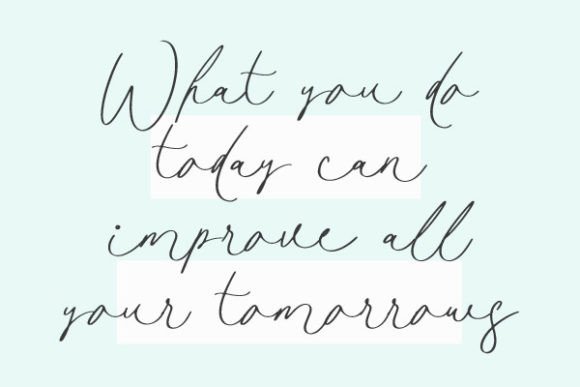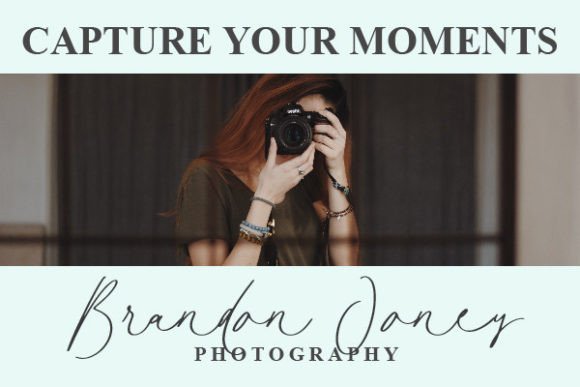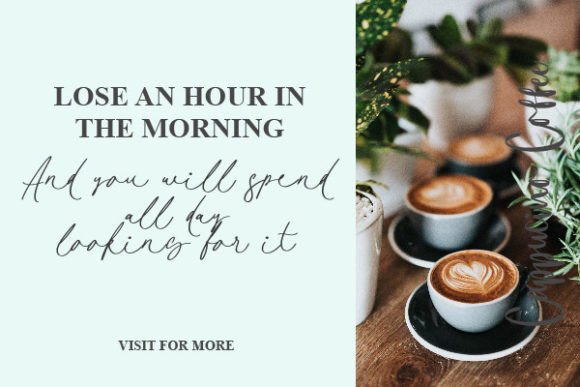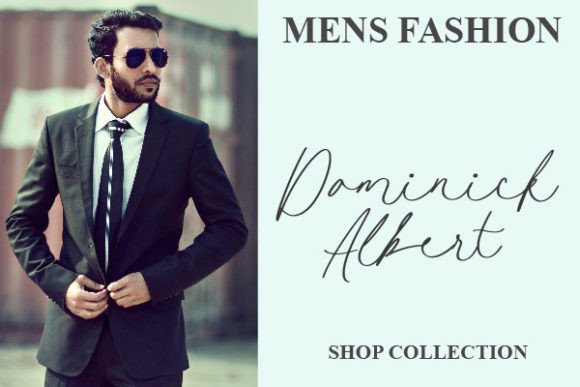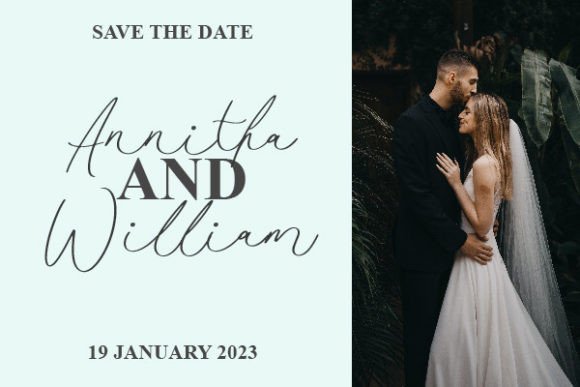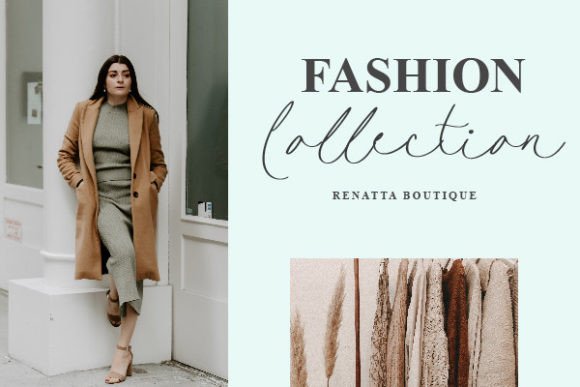
Introduction to Lynda Sinclair Font
Have you ever been brainstorming ideas for a creative project, and suddenly, the perfect font pops into your mind? For designers, finding the right font can be a game-changer. It’s that moment when the entire concept comes together, and you know you’re onto something special.
That’s exactly what happens when you discover the Lynda Sinclair Font. This stunning handwritten font is more than just a design element – it’s a statement piece that elevates your work to the next level. With its elegant curves, graceful swashes, and delicate flourishes, the Lynda Sinclair Font is perfect for creating unique designs that demand attention.
Whether you’re working on a wedding invitation, social media post, or any other creative project, the Lynda Sinclair Font is a valuable resource that can take your design to new heights. And the best part? It’s available for free download, making it an accessible design resource for designers of all levels.
Key Features of Lynda Sinclair Font
- Unique, hand-drawn design with a touch of elegance and sophistication, ideal for creative projects.
- Designed with a focus on legibility, ensuring that the font remains clear and readable even at smaller sizes.
- Perfect for a wide range of creative projects, including branding, advertising, and editorial design.
Honest Review: Lynda Sinclair Font
As a designer, I’m always on the lookout for high-quality fonts that can elevate my creative projects. The Lynda Sinclair Font caught my eye with its elegant and sophisticated design. In this review, I’ll share my honest thoughts on this font.
- The Lynda Sinclair Font has a beautiful, high-quality design that’s perfect for creative projects.
- The font may not be suitable for projects that require a bold, attention-grabbing font.
Overall, I’m impressed with the Lynda Sinclair Font. It’s a great addition to any designer’s toolkit, and its high-quality design makes it perfect for creative projects. While it may have some limitations, it’s still a valuable resource that’s worth considering for your next design project.
Tips for Getting the Most Out of Lynda Sinclair Font
To get the most out of Lynda Sinclair Font, use it in conjunction with other design resources. Experiment with different font sizes, colors, and styles to achieve a unique look. You can also use the font with a transparent background to add depth to your design.
The Lynda Sinclair Font is perfect for a variety of design projects, including business cards, logos, and brochures. You can also use it for creative projects such as invitations, posters, and social media graphics.